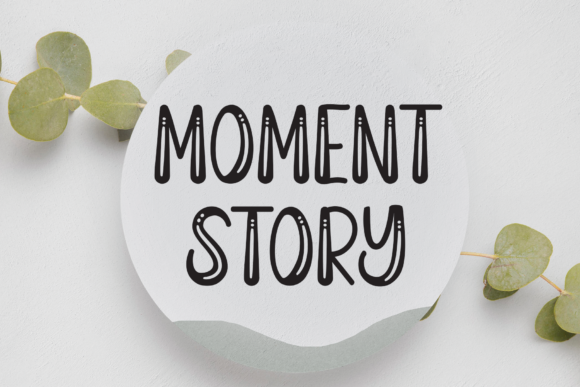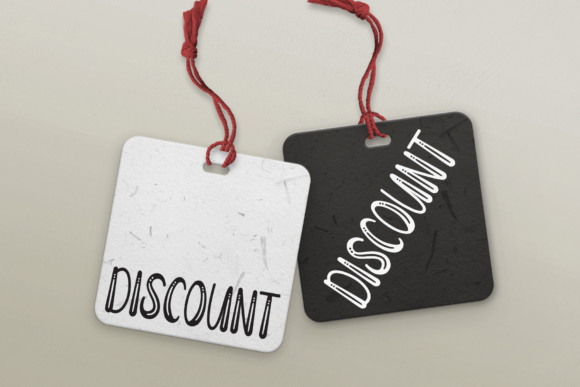
Bubble Planner Font
db-ku.com - Script & Handwritten -- This is a beautiful and flowing handwritten font. Use for wall hangings, wedding invitations, social media post logos,